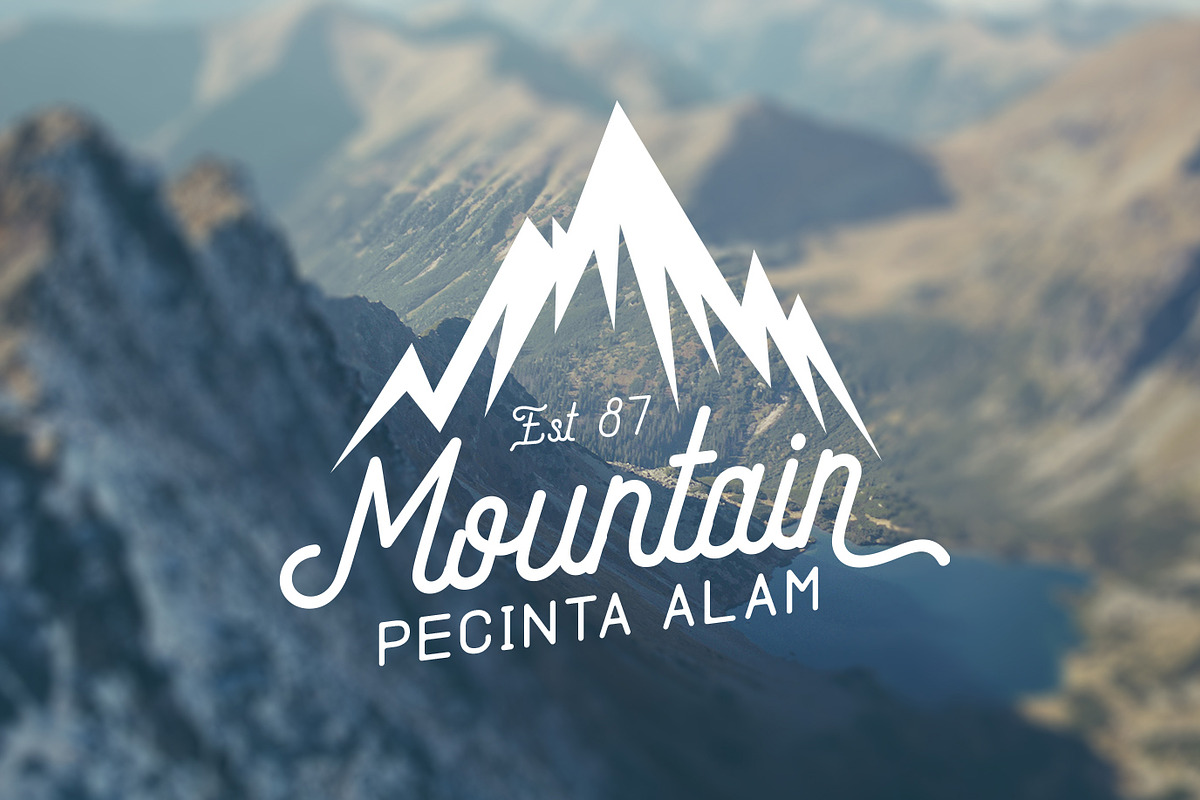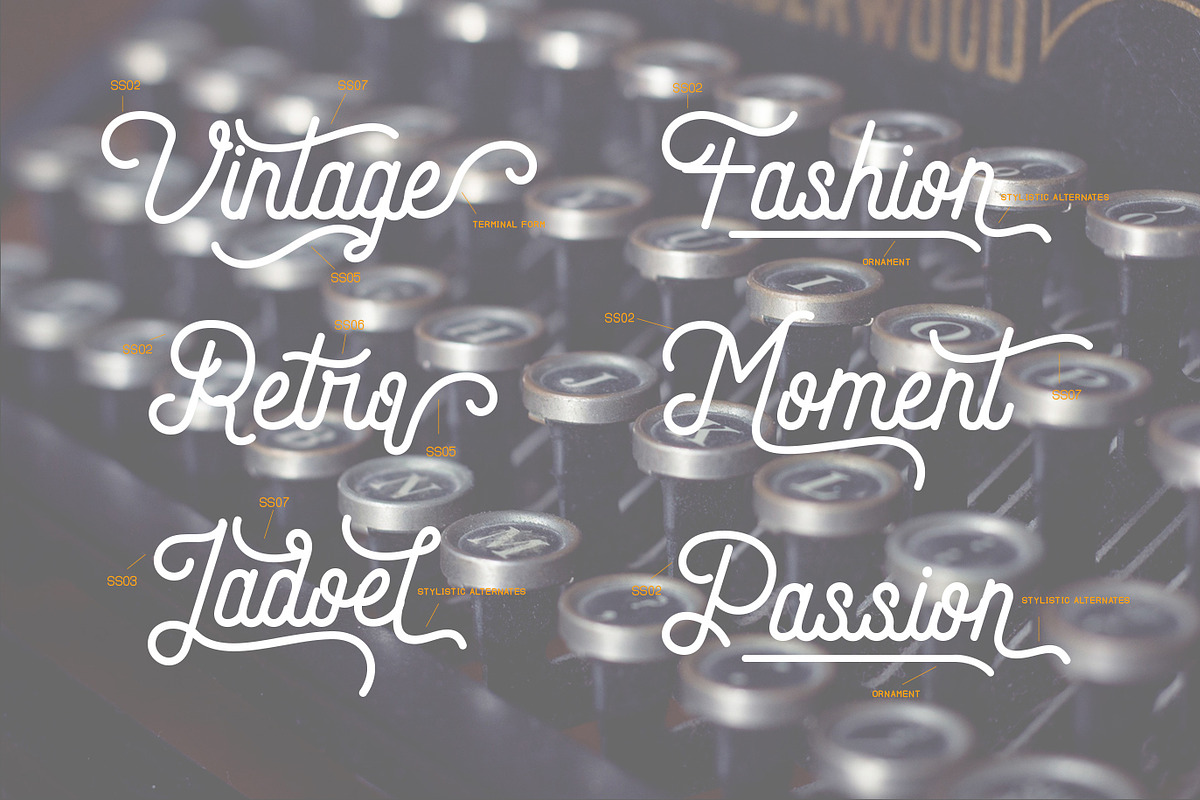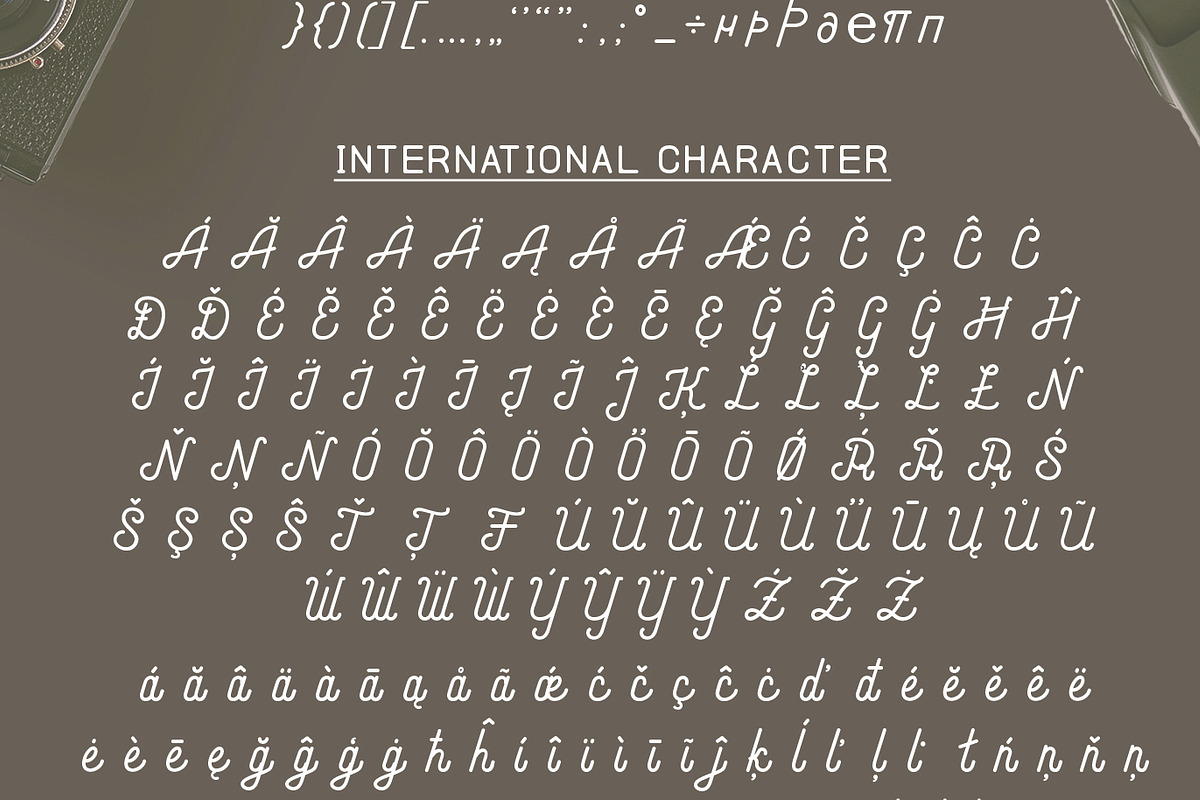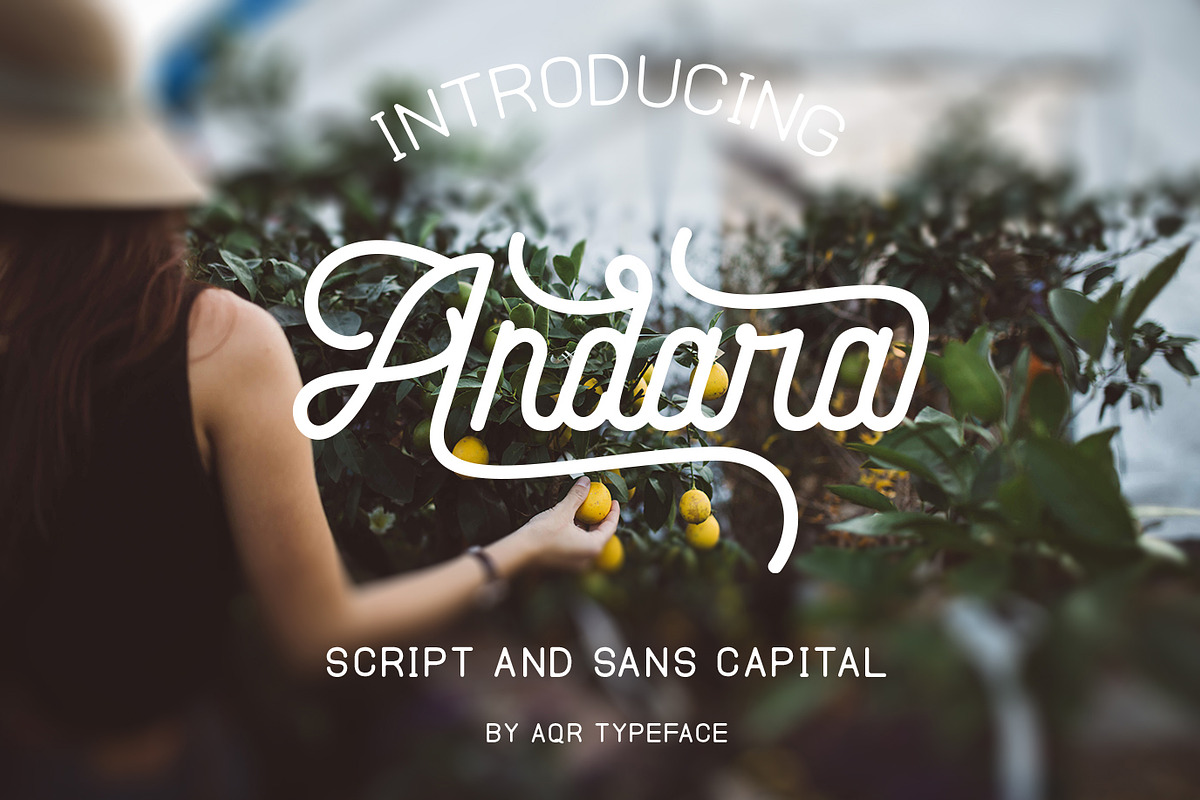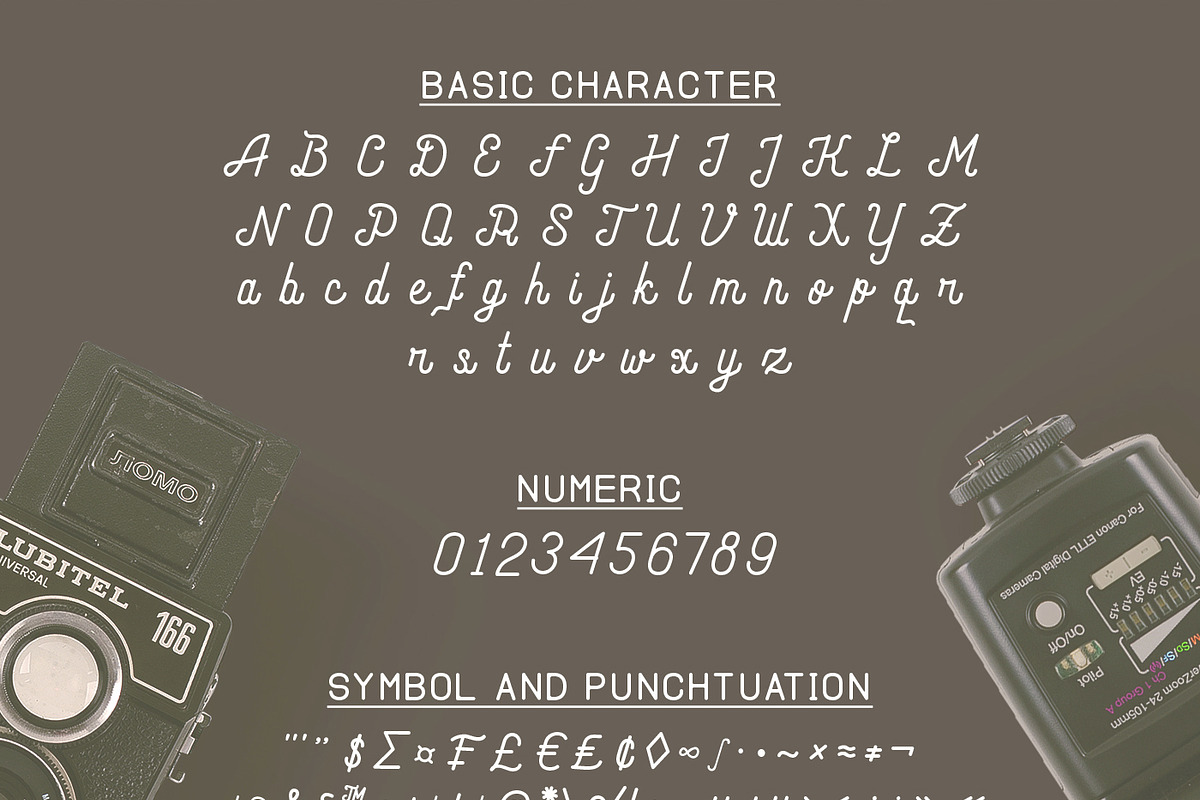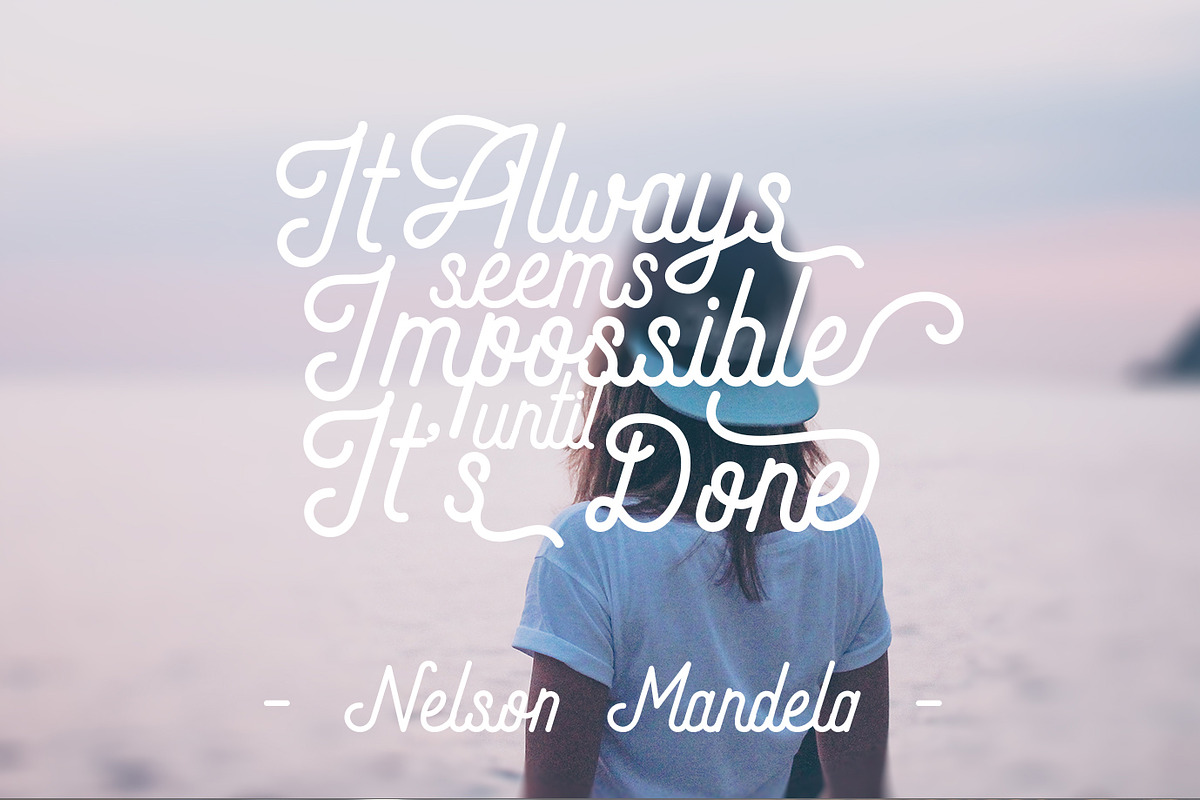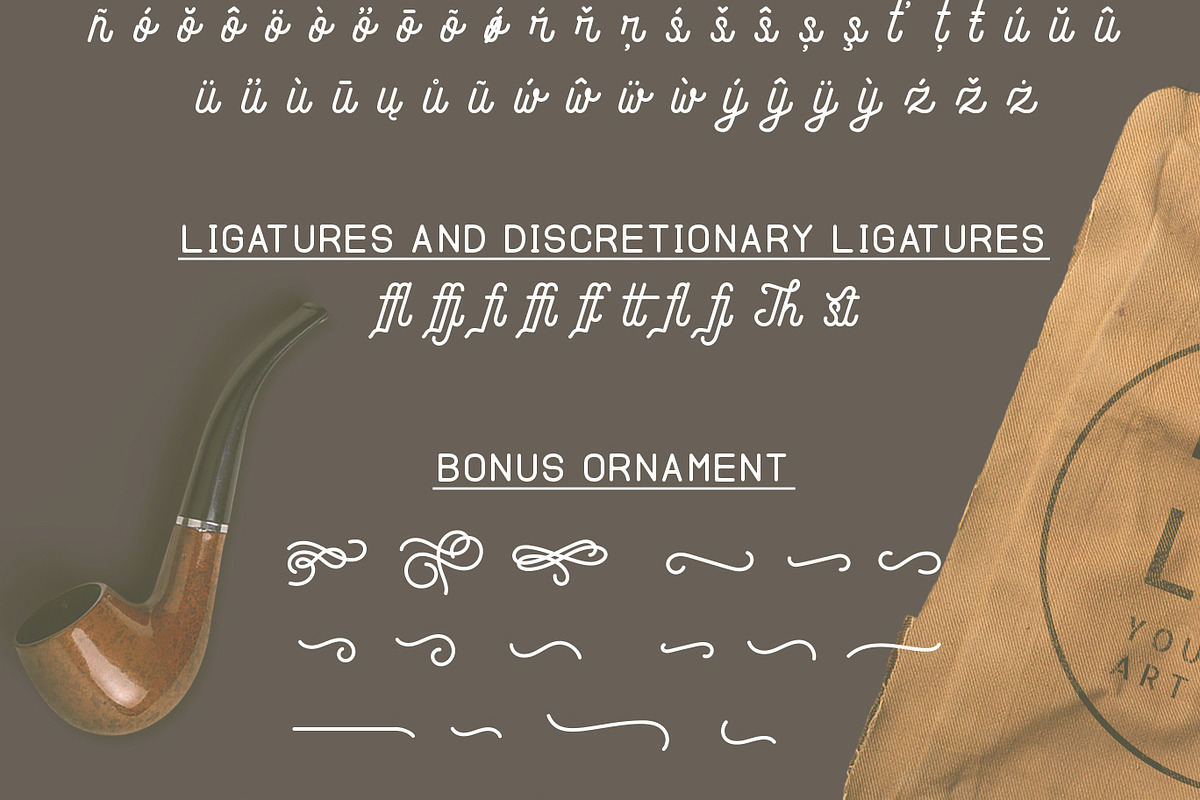
Andara Font ( 30% OFF ) by AQR Studio is a font selected for branding, posters, packaging, typography.
- Andara Script Featured With : Basic Character and Multilingual Character Stylistic Sets - Contextual Alternates Stylistic Alternates Swash A
- Andara Sans Slanted Regular
- Andara Sans Regular
- Andara Uppercase Uppercase
- Andara Script Soft
Andara Font ( 30% OFF ) by AQR Studio fits naturally into Branding, posters, packaging, typography.